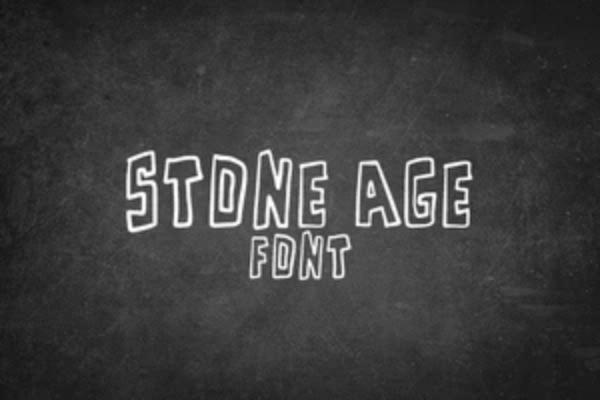
Stone Age Font Description
Stone Age is a cute display font, carefully handcrafted to become a true favorite. Its casual charm makes it appear wonderfully down-to-earth, readable and, ultimately, incredibly versatile. Stone Age will look outstanding in any context, whether it’s being used on busy backgrounds or as a standalone headline!